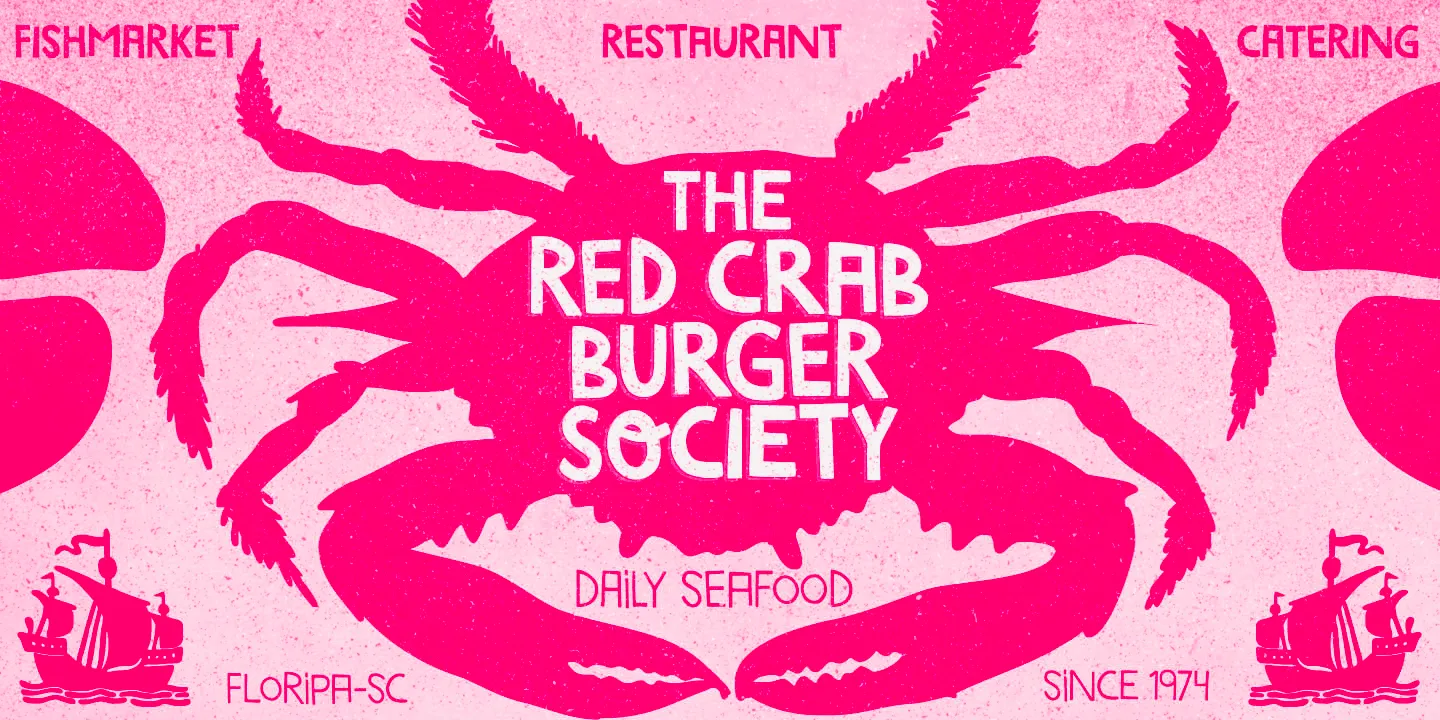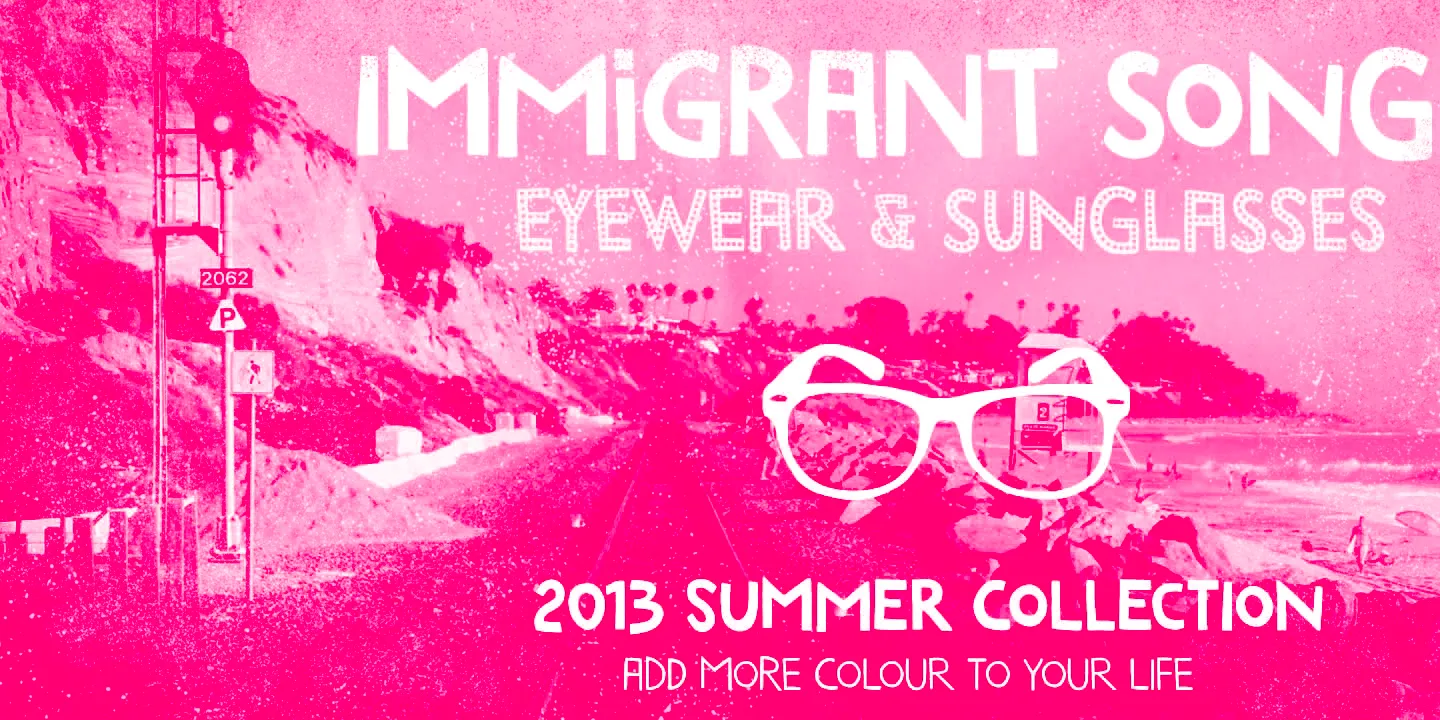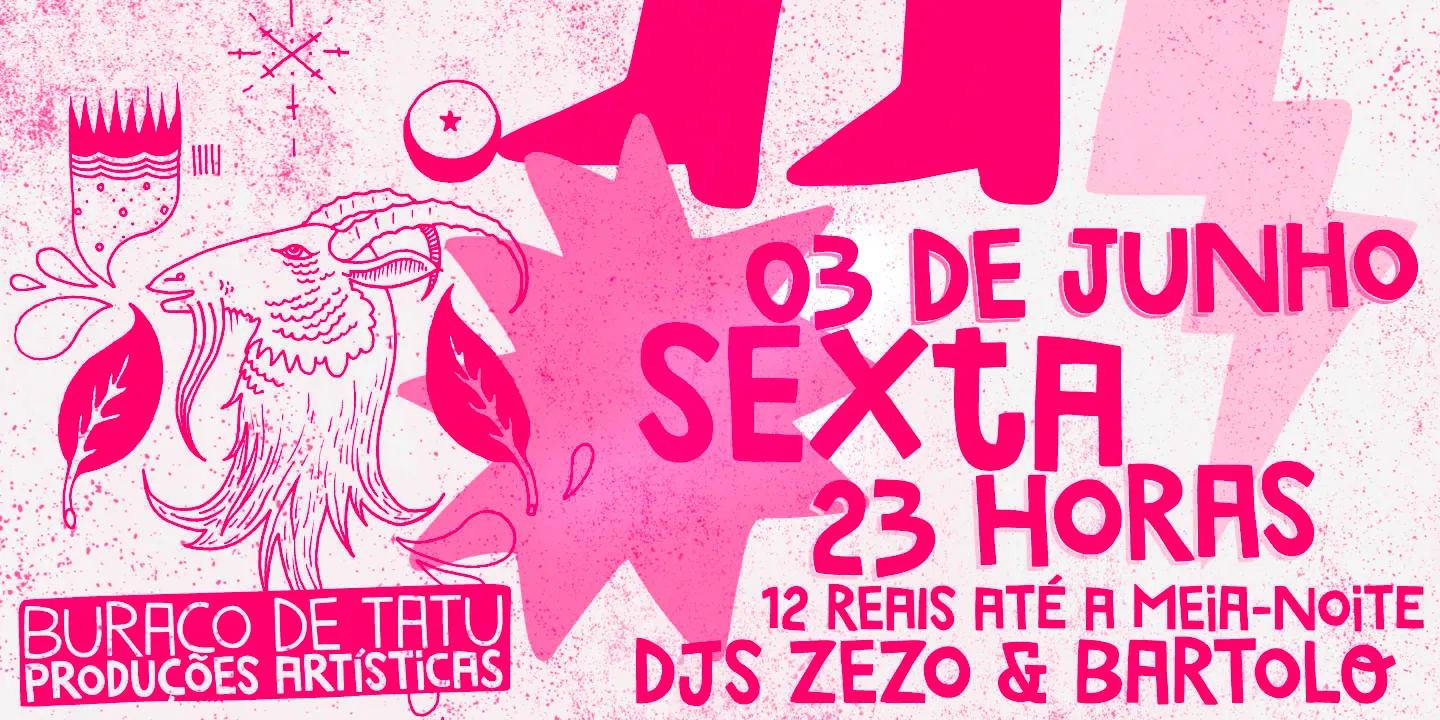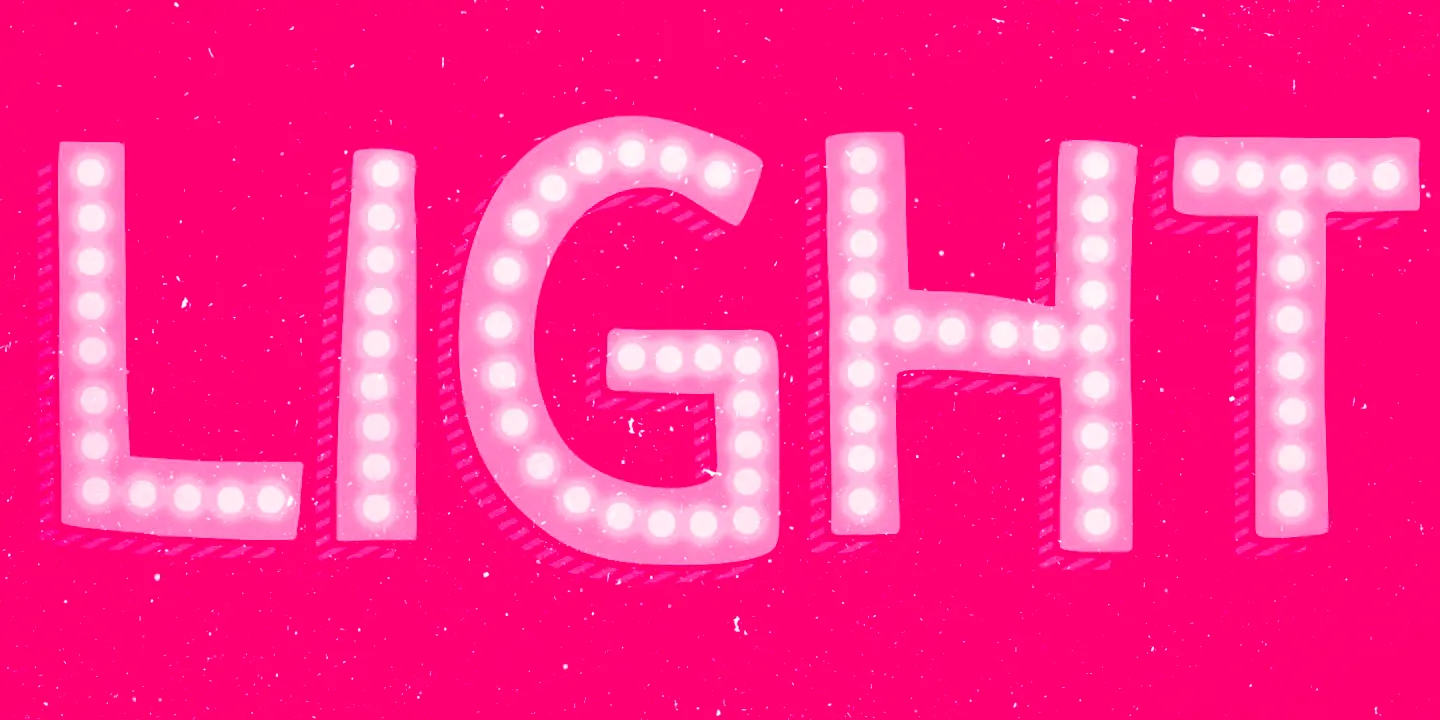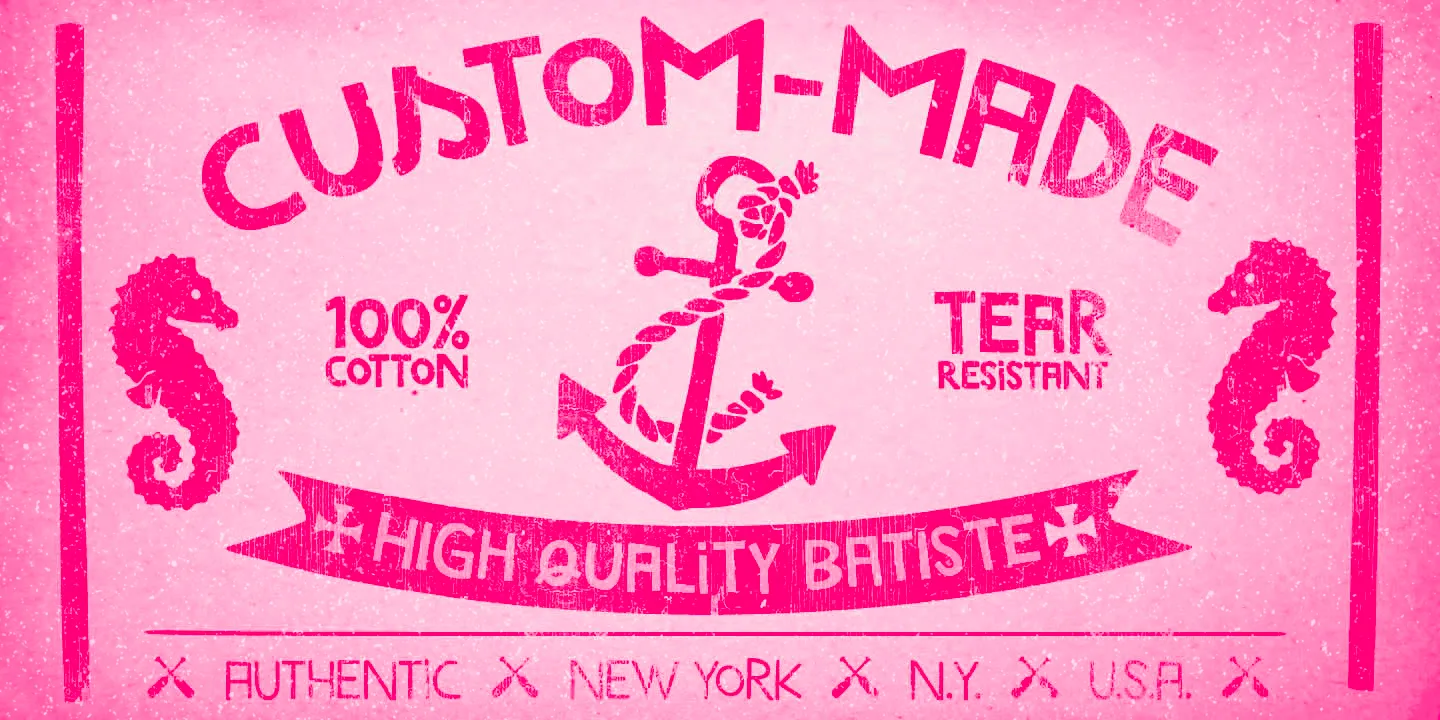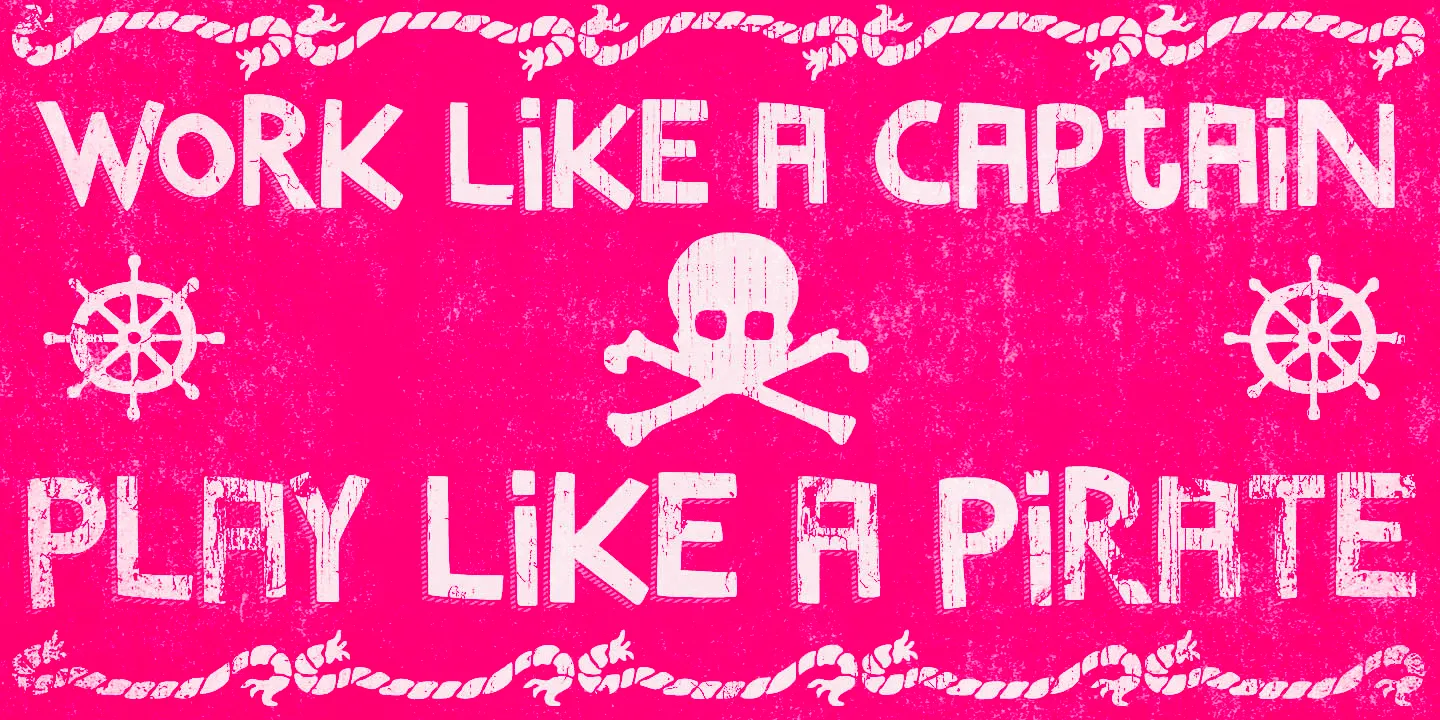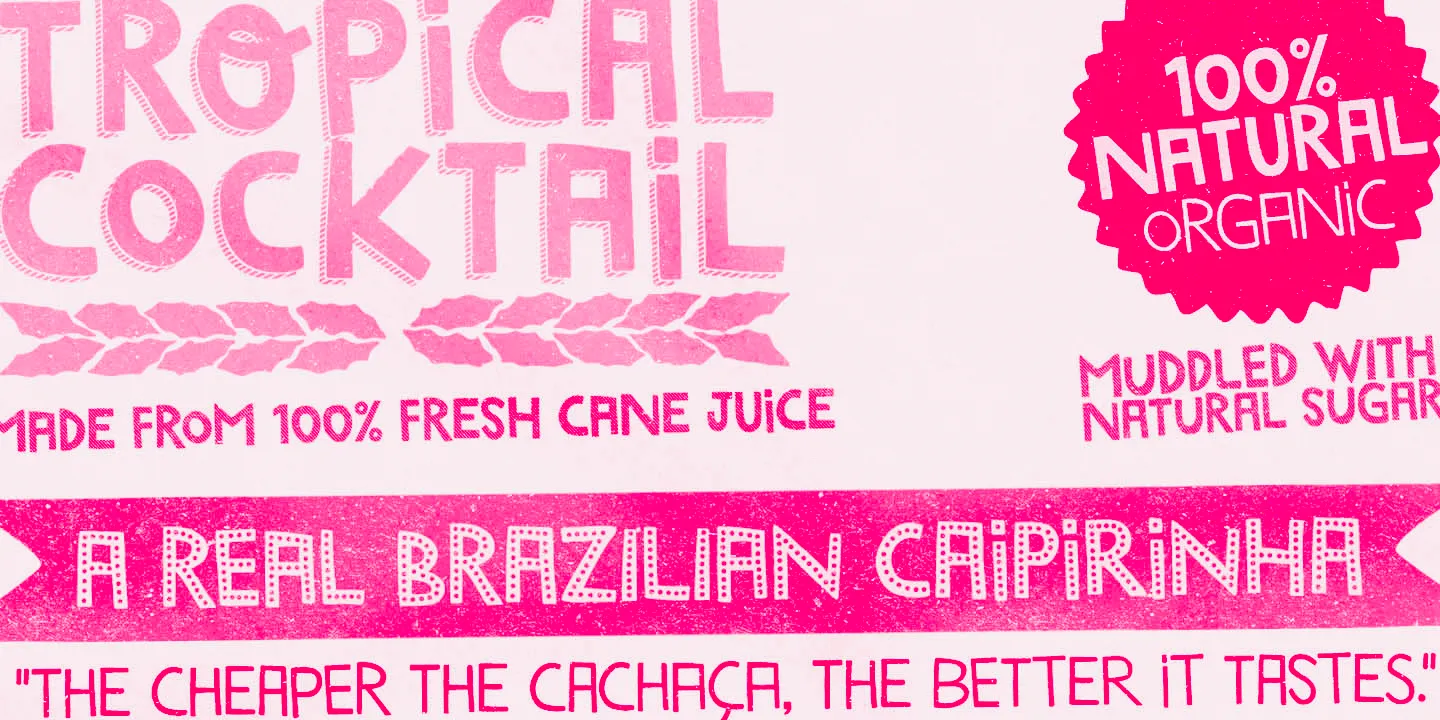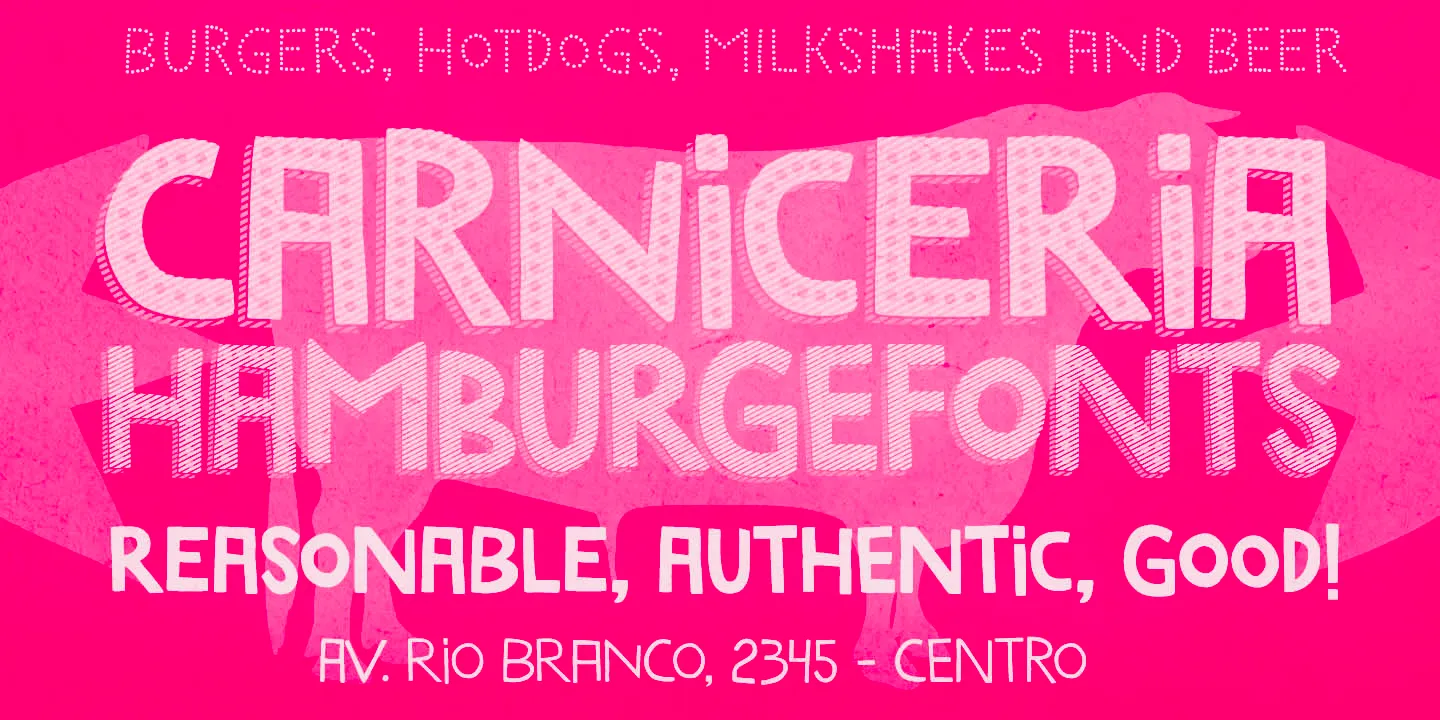
Marujo
Marujo is an expressive, decorative type family inspired by the embroidered and painted creations of Brazilian artist Arthur Bispo do Rosário. Drawn from his intricate, word-filled works — made during decades spent in a psychiatric institution — Marujo celebrates resilience through art. With playful styles from Striped to Dotface, Shadows to Color, the family offers spirited choices for bold headlines, creative projects, and free-form typography.
- Common Ligatures
- Fractions
- Ordinal Numerals
- Stylistic Alternates
- Superscript